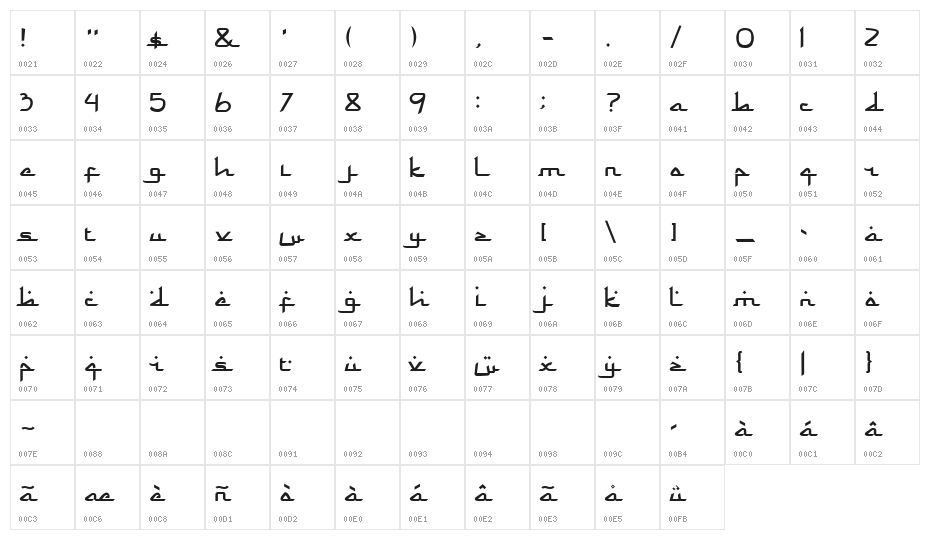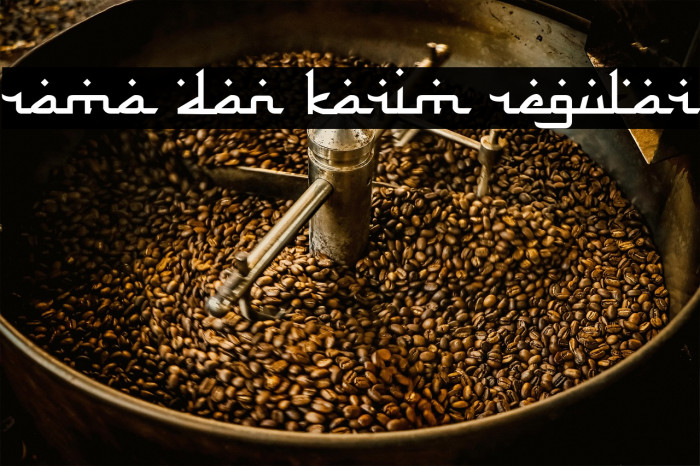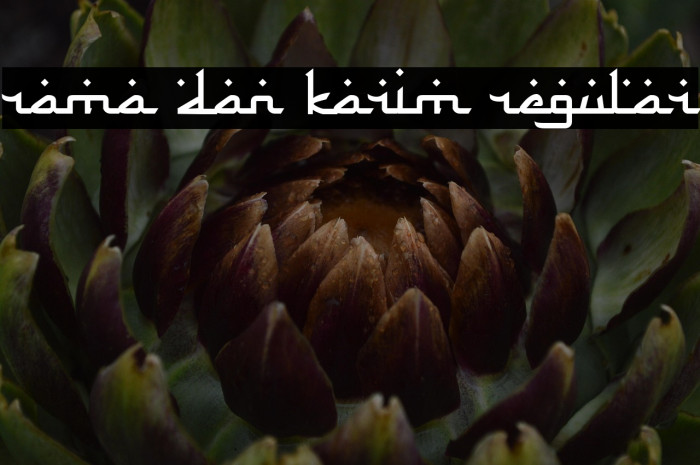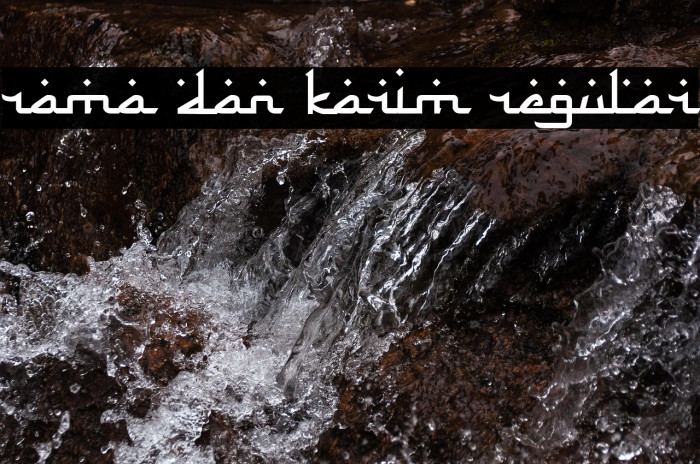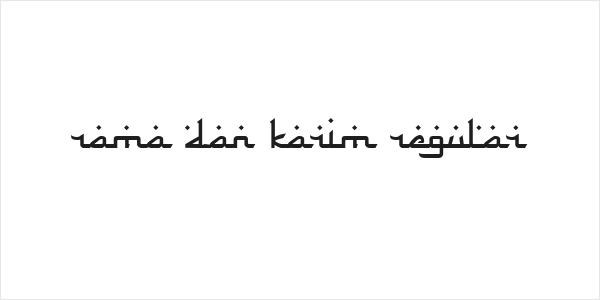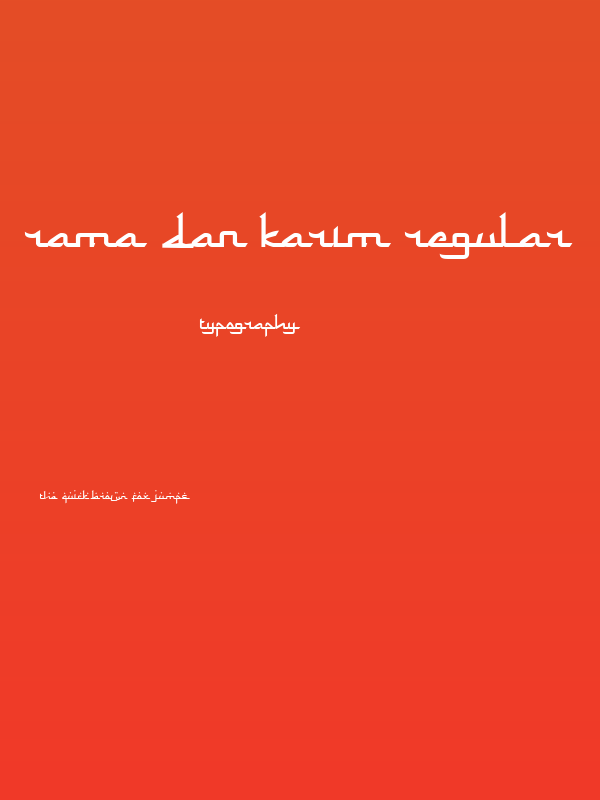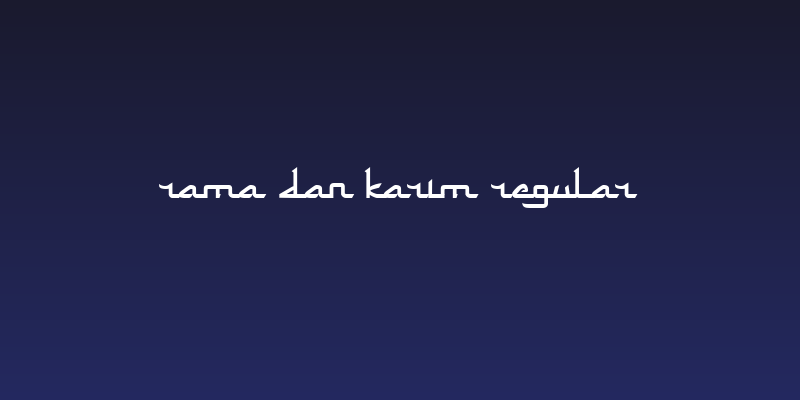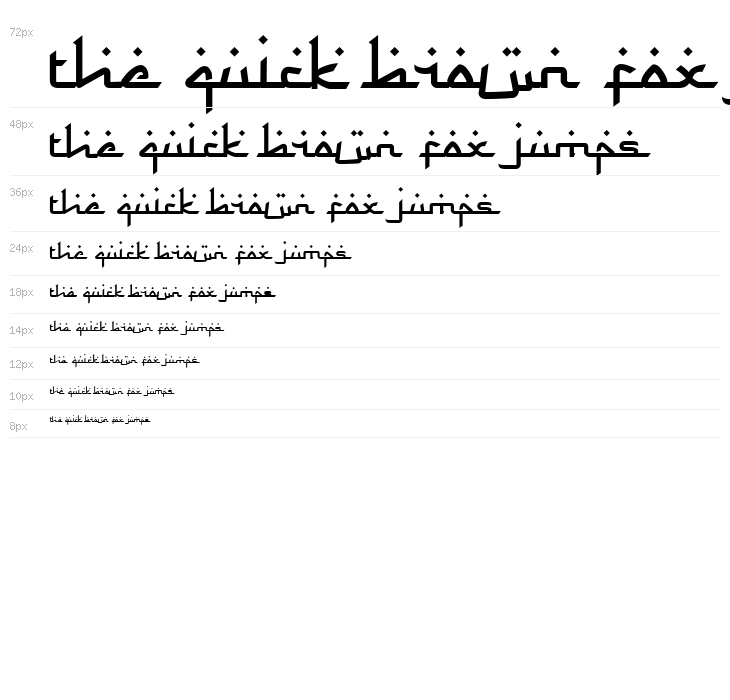
Rama dan Karim Regular Font
Rama dan Karim Regular Description
This font features a unique blend of modern and traditional elements, characterized by its flowing, interconnected script style. The letters are elegantly elongated with a consistent baseline that runs through the characters, creating a harmonious and fluid appearance. The design incorporates both uppercase and lowercase letters, numerals, and a selection of special characters. The strokes are bold and uniform, providing a strong visual impact while maintaining readability. This font is particularly suitable for projects that require a touch of elegance and sophistication, such as invitations, branding, and decorative purposes.
| Use Case | Headlines, Logos, Decorative text |
| Proposed Projects | Ideal for invitations, branding, decorative projects, and elegant design applications. |